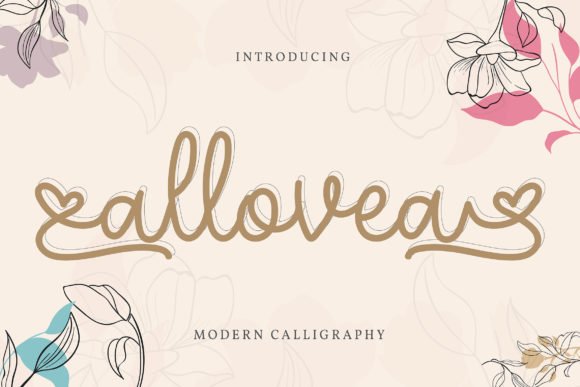
Adding a Touch of Elegance to Your Designs
There’s nothing quite like the feeling of bringing a project to life, is there? The moment when all the pieces come together, and you step back to admire your handiwork – it’s pure magic. And for designers, that magic often starts with the perfect font.
Enter the Allovea Font, a stunning script font that’s sure to elevate your projects to new heights. With its delicate, classy look, Allovea was designed to add a touch of sophistication to any design. Whether you’re working on a wedding invitation, a branding campaign, or a beautifully crafted book, this font is the perfect addition to your toolkit.
What sets Allovea apart is its versatility and ease of use – thanks to its PUA encoding, you can access all the beautiful glyphs and swashes with ease, making it a valuable asset for designers looking to add a personal touch to their work.
Allovea Font Key Features
- Unique Characteristics: Allovea Font features a unique blend of modern and vintage elements, with a distinctive flair and elegance that sets it apart from other fonts.
Allovea Font Review
As a designer, I was excited to dive into Allovea Font and see what it had to offer. Overall, I found it to be a unique and stylish font that can add a touch of elegance to any design project. ✨
- Beautiful calligraphy: Allovea Font’s calligraphy is stunning, with intricate details and flourishes that make it perfect for creating high-end, luxurious designs.
- Good legibility: Despite its decorative nature, Allovea Font is still easy to read, making it a great choice for body text or headings.
- High-quality files: The font files are well-optimized and include a range of weights and styles, making it easy to customize and adapt to different design needs.
- Limited character set: Allovea Font’s character set is relatively limited, which may make it less suitable for projects that require a wide range of characters, such as multilingual designs.
- May not be suitable for digital use: While Allovea Font is suitable for print, its decorative nature may make it less suitable for digital use, where legibility and readability are paramount.
- Can be overwhelming: Allovea Font’s intricate details and flourishes can be overwhelming if used too extensively, so it’s essential to use it sparingly and in moderation.
Overall, Allovea Font is a beautiful and stylish font that can add a touch of elegance to any design project. While it may have some limitations, it’s a great choice for designers who want to create high-end, luxurious designs that stand out from the crowd. ⚠️
Allovea Font Practical Application Guide
Allovea Font is perfect for creating eye-catching headings and titles in your Canva designs.
Allovea Font is ideal for creating custom typography and lettering in your Adobe designs.
Allovea Font is perfect for adding a touch of elegance and sophistication to your presentations and documents.
Allovea Font is a versatile font that can be used in a variety of contexts, including:
- Marketing materials and advertisements
- Editorial content and publications
Remember to experiment with different font sizes, styles, and combinations